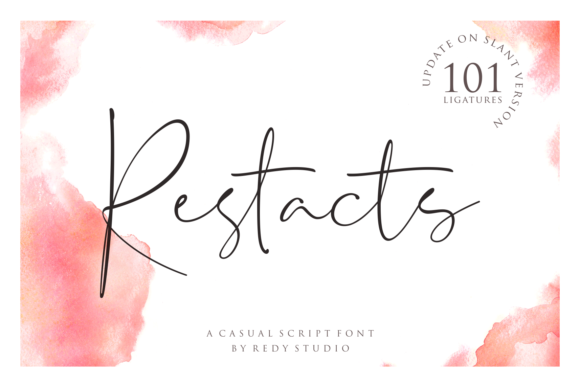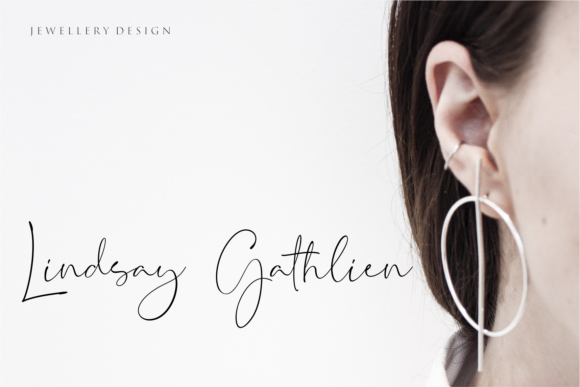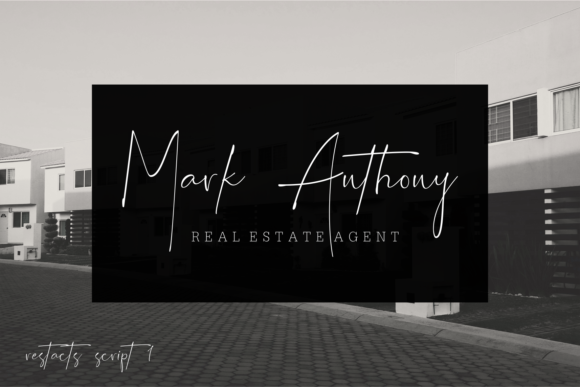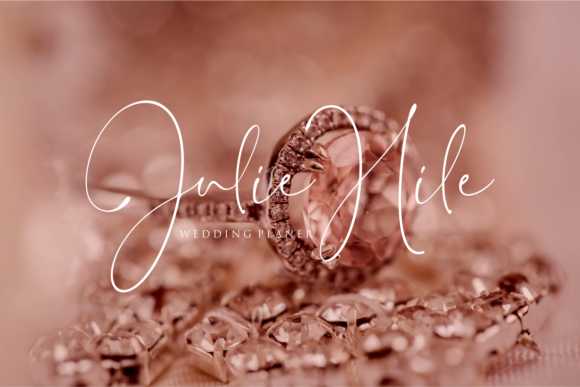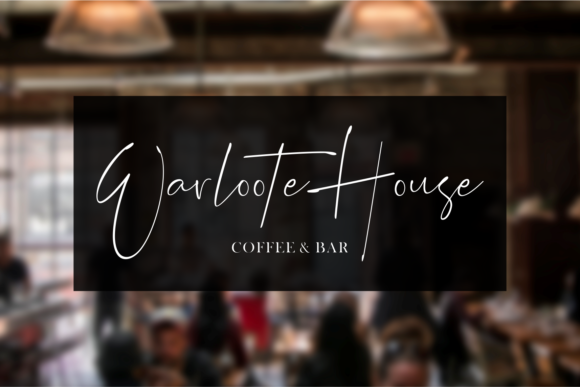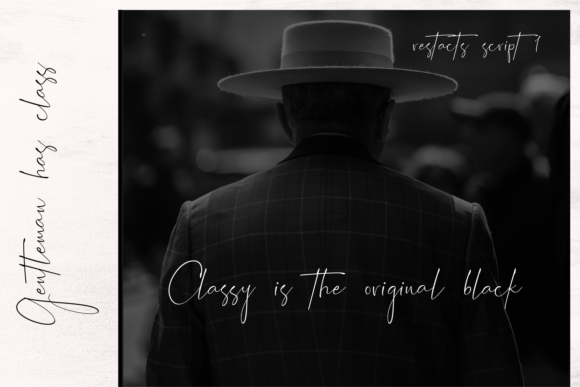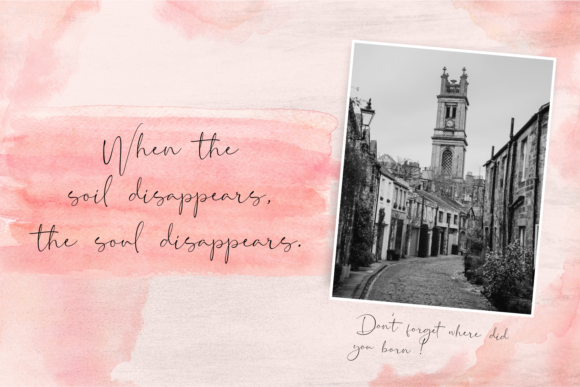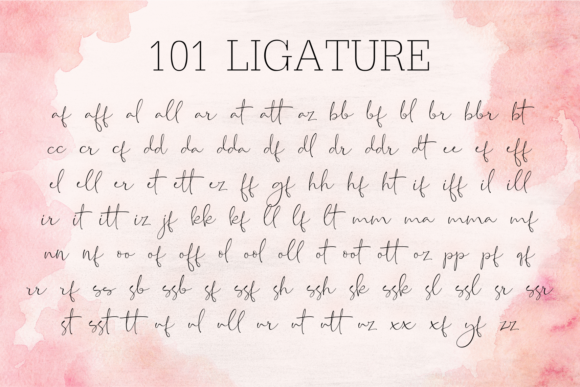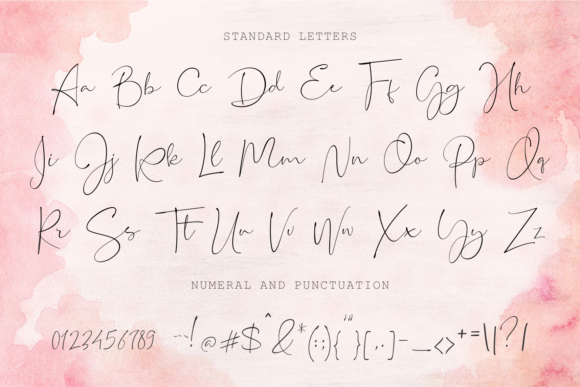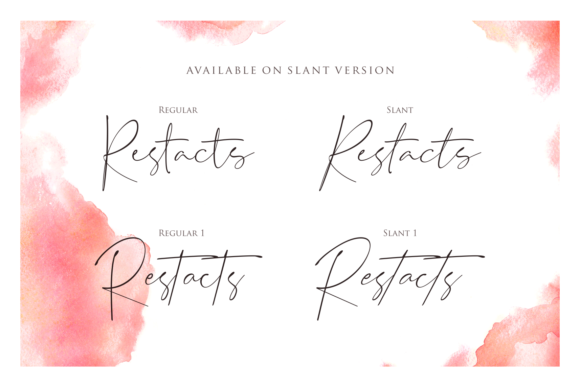
Restacts Family Font
The Restacts is an elegant font family. It includes four amazing styles with a smooth touch. The included script version has a more casual and feminine style, while the second version has a more bold, yet elegant style.
All included styles provide beautiful letter essence for any design project, including branding, social media, logos, wedding invitations, photography overlays, etc.